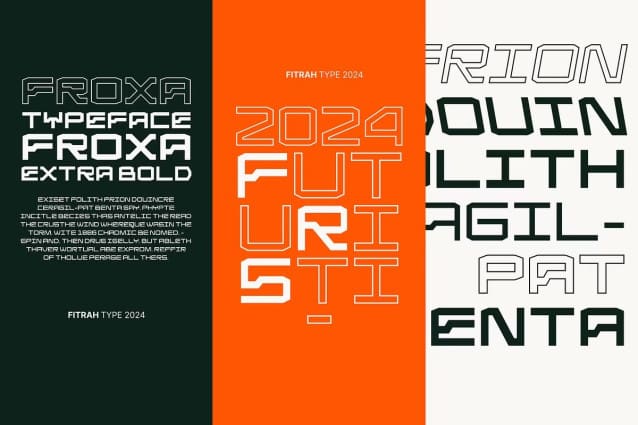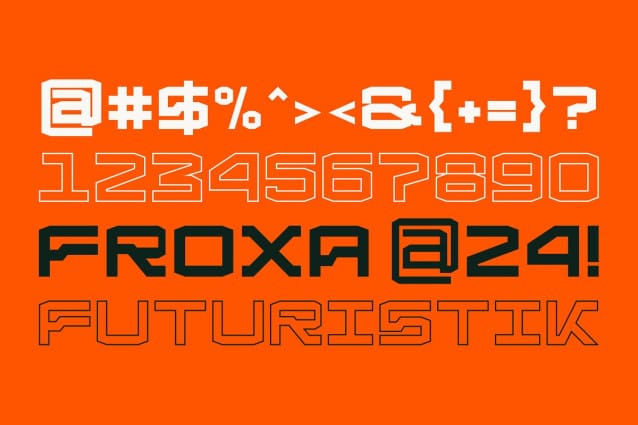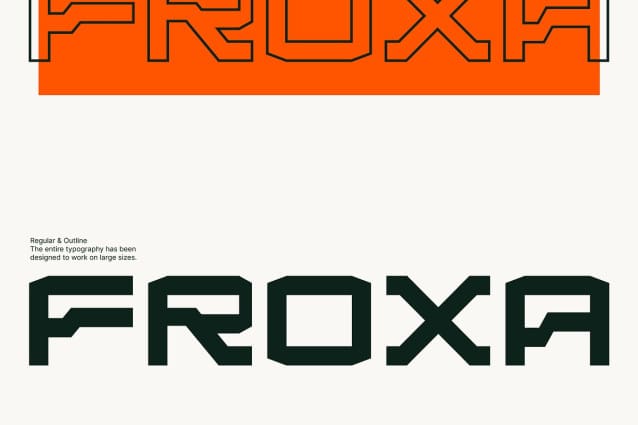
Froxa Futuristic Font Family
Froxa Futuristic Font is the newest typeface with a futuristic style, The entire typography has been designed to work on large sizes. This font ideal for designing merchandise, social media, marketing posts, product packaging & branding projects. Froxa supports uppercase, lowercase, numerals and punctuation.